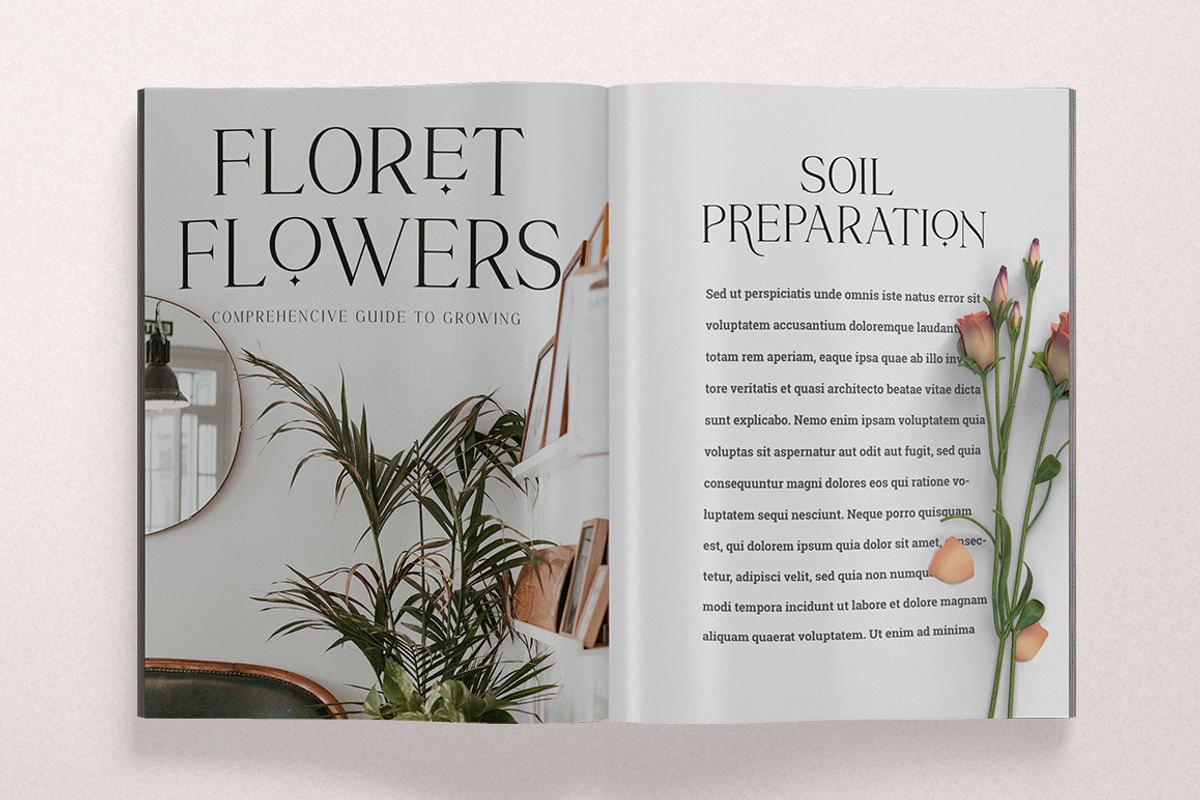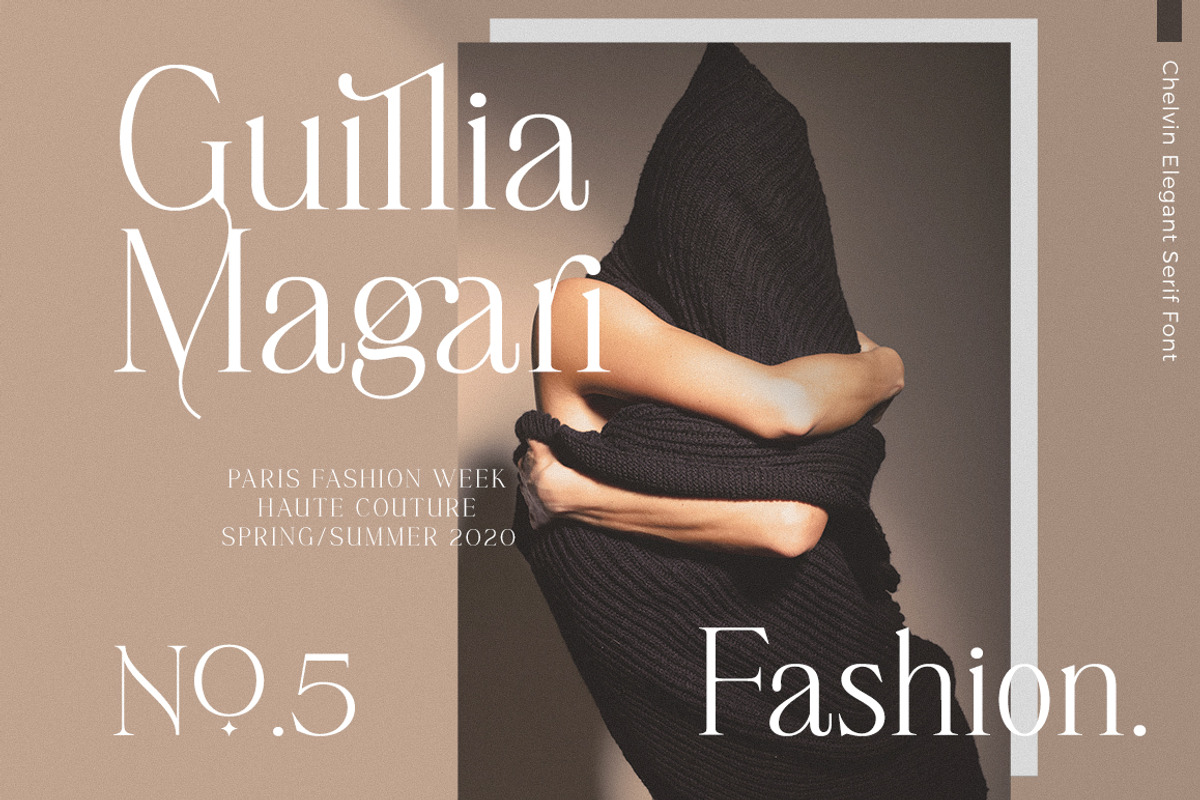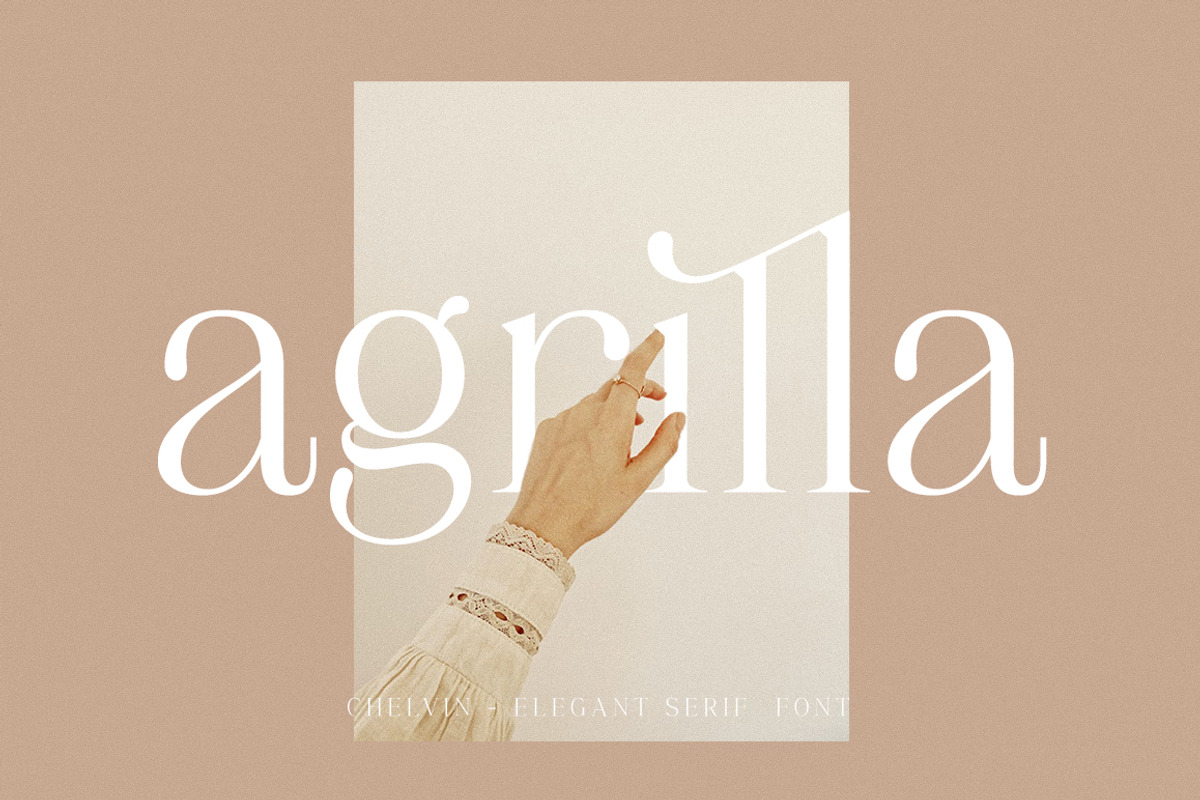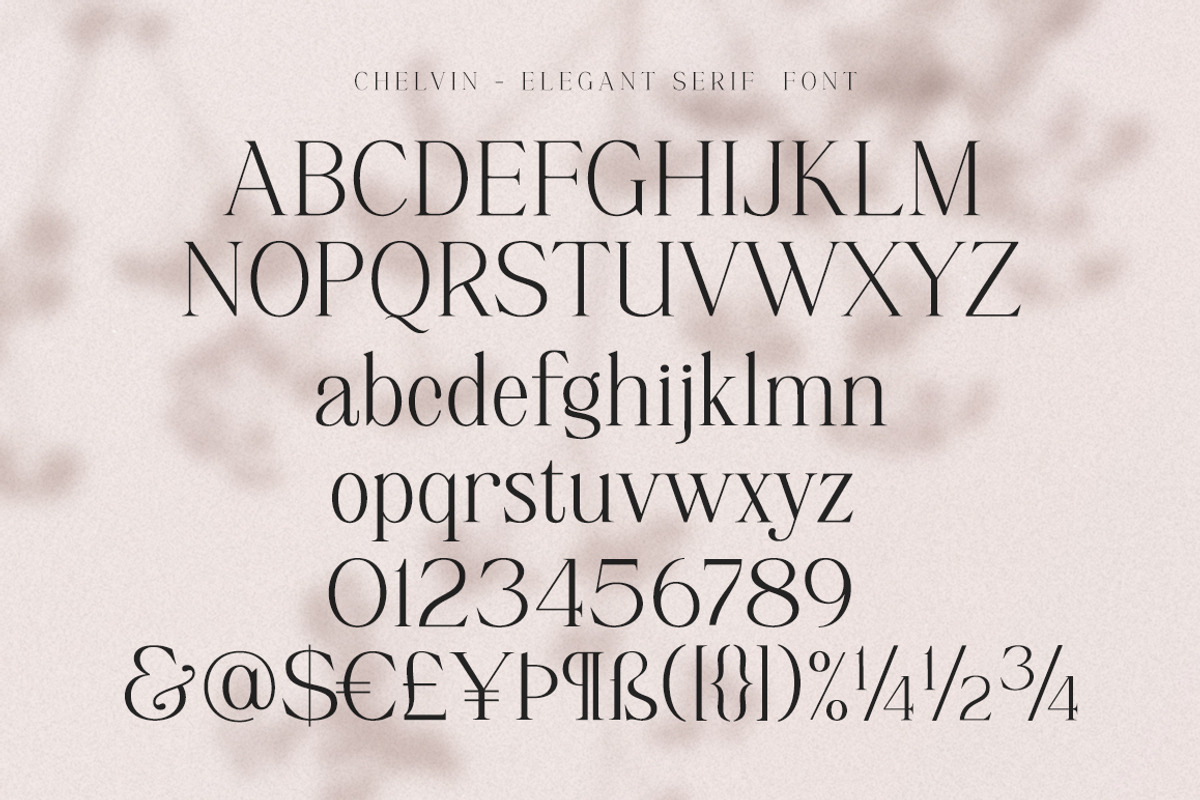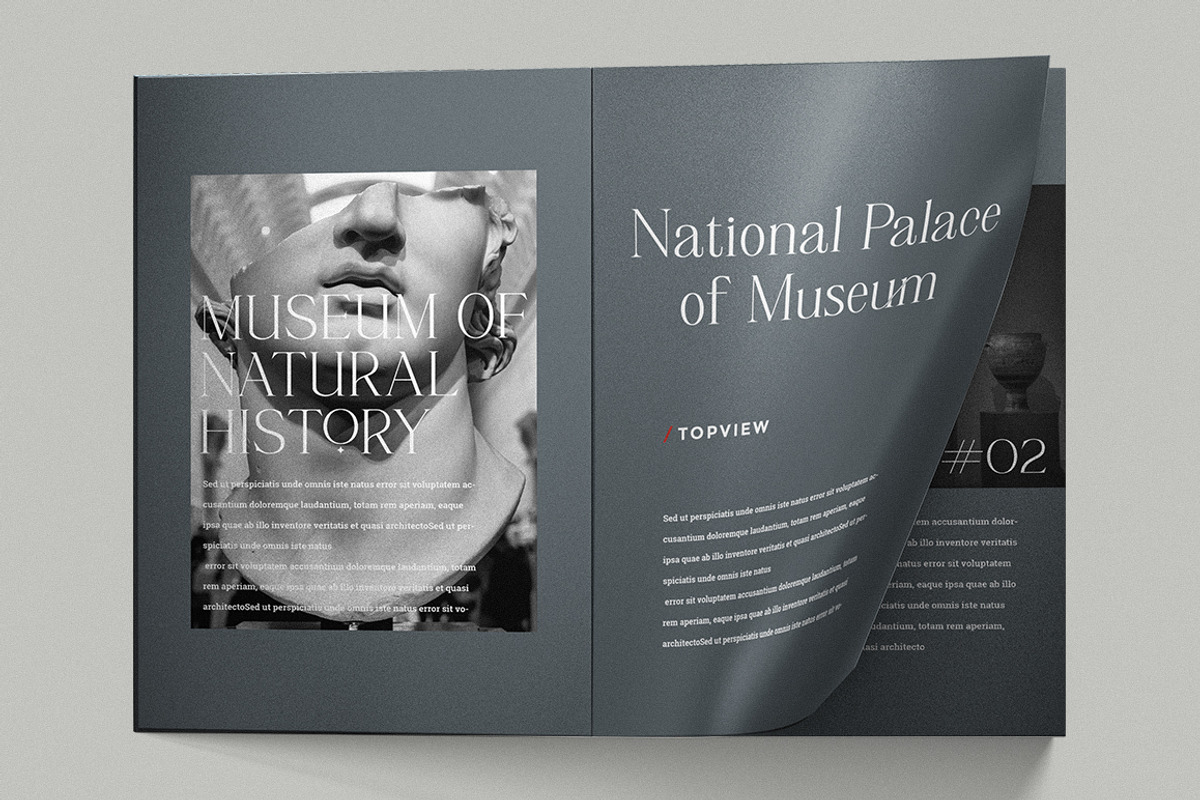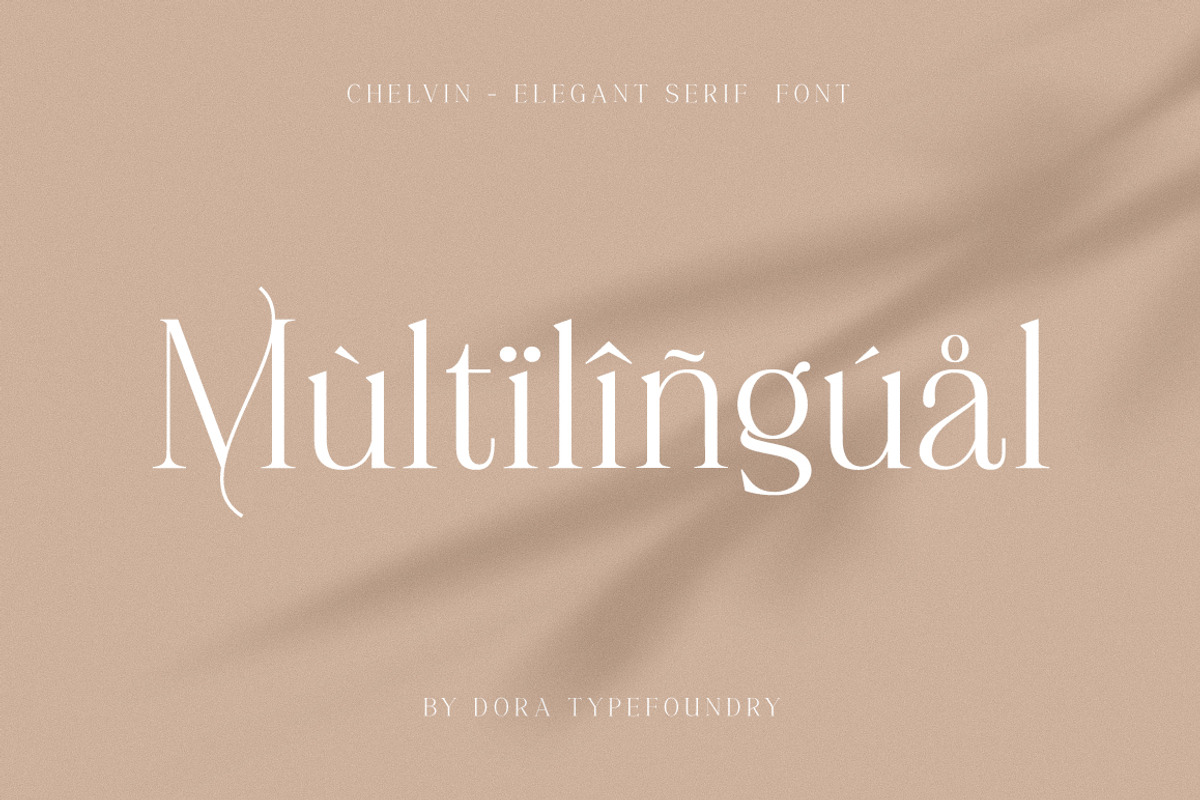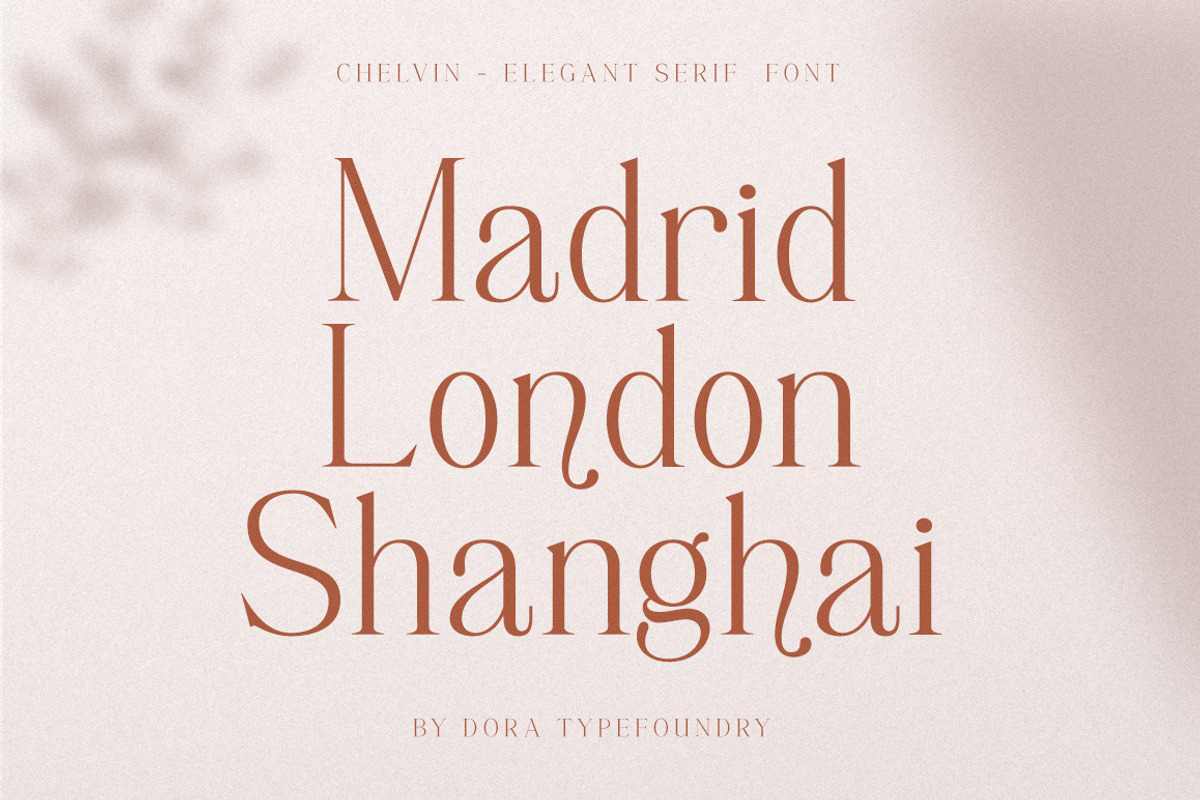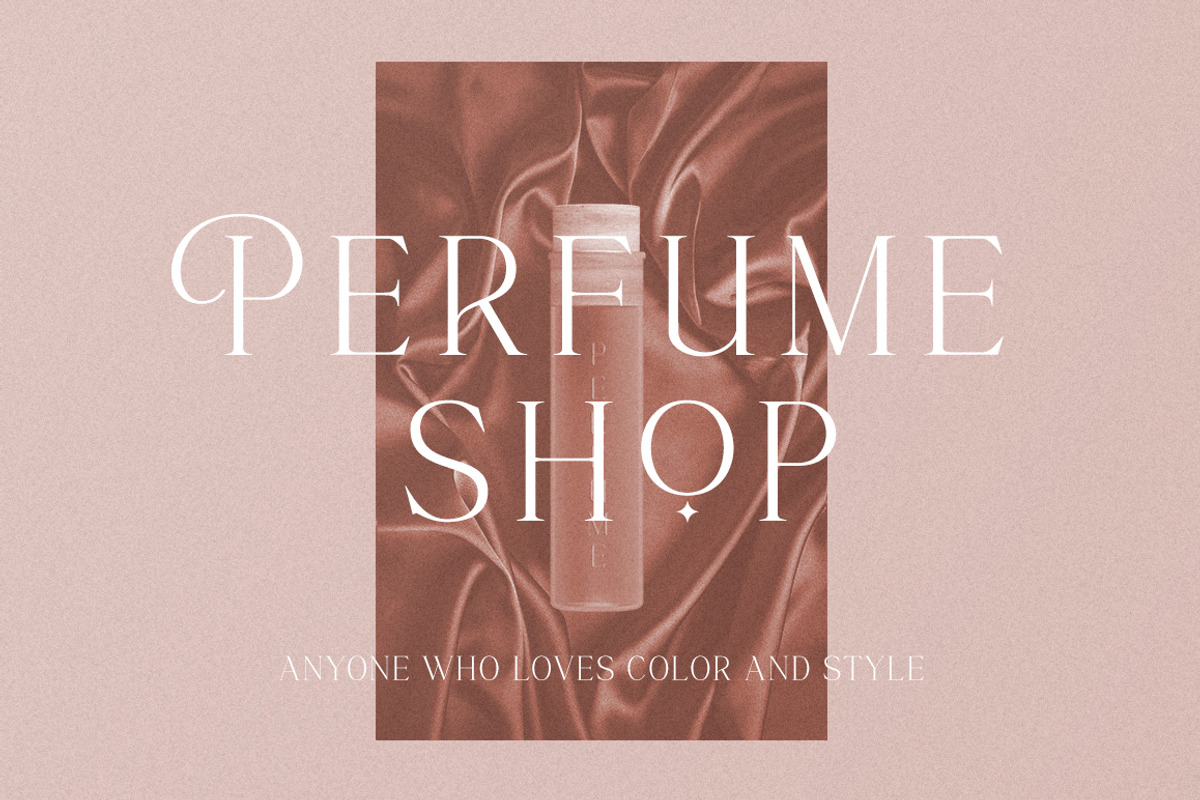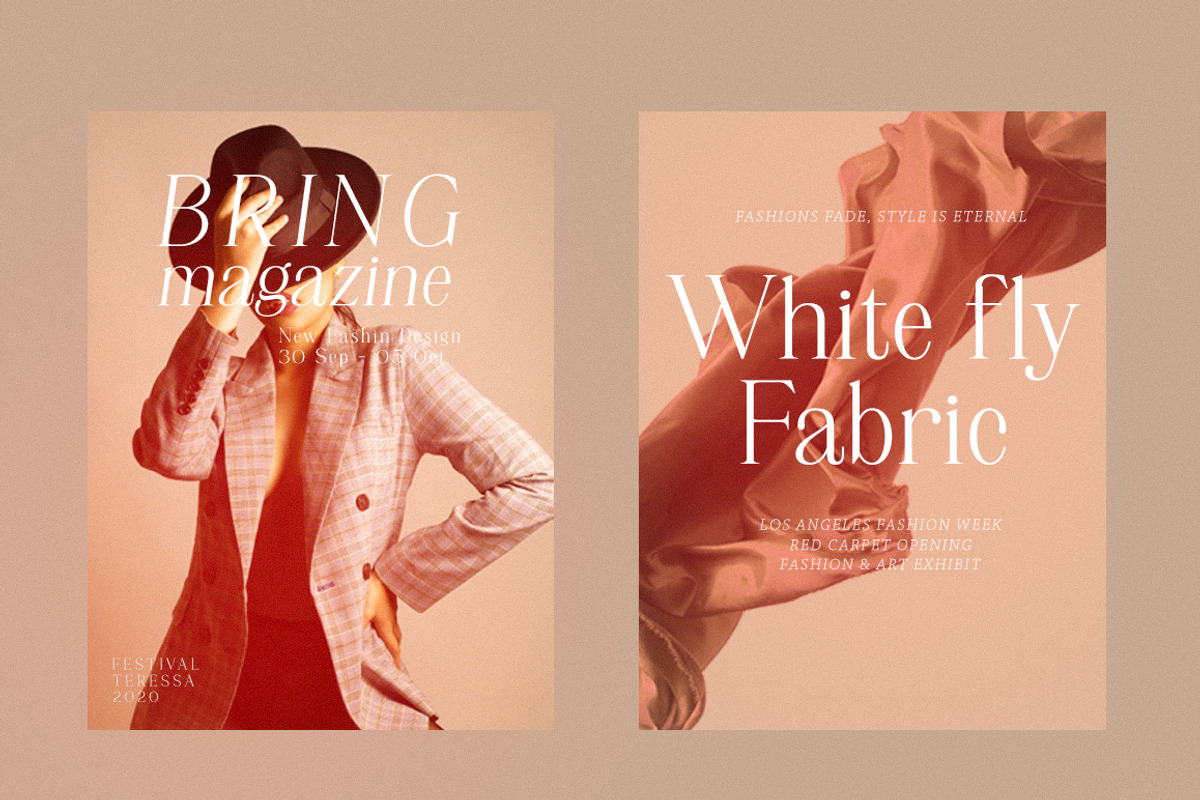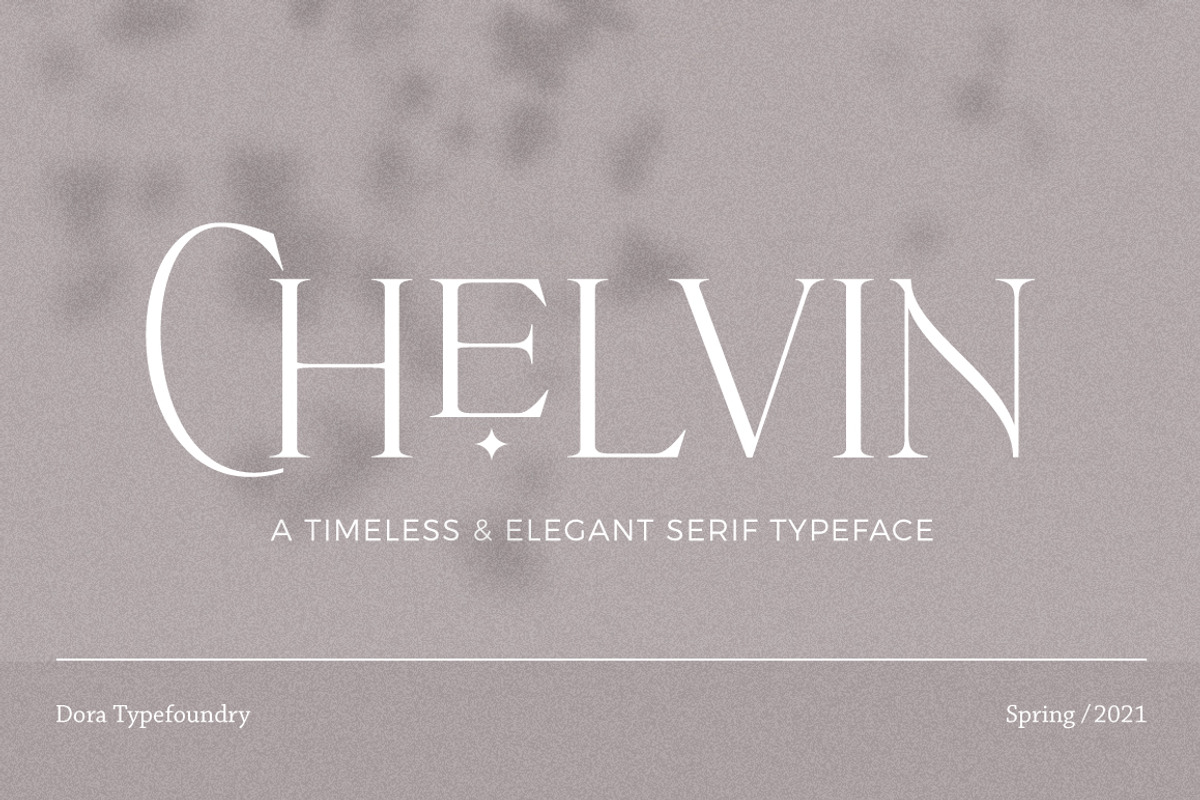
Chelvin Elegant Serif
Chelvin - is a strong neoclassical serif font family with high contrast, cool, stylish and unique looks with alternative fonts, Ligatures and multilingual support.
This font idea has a wide range of references, from vintage to classic to the modern era, making it the perfect typeface for an understated, modern, and sophisticated look. all forms of beauty and luxurious ligature suitable for brands and designs. Chelvin's wide selection of changing styles and ligatures makes this serif font incredibly versatile. Use Chelvin for your branding, magazine design, logo design, headlines, posters, packaging, cards or wedding invitations.
Chelvin includes two styles (Standard / Italic) which each include 114 glyphs. OpenType features include 53 standard ligatures and a small number of character variants, and multilingual support (including multiple currency symbols).
- 2 Font weight
- Alternative & Ligature Styles
- Characters with accents
- Supports Multiple Languages